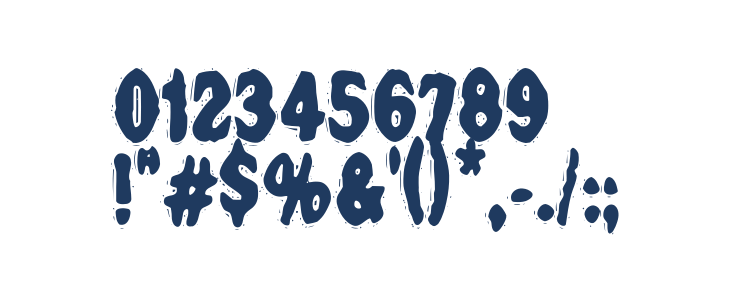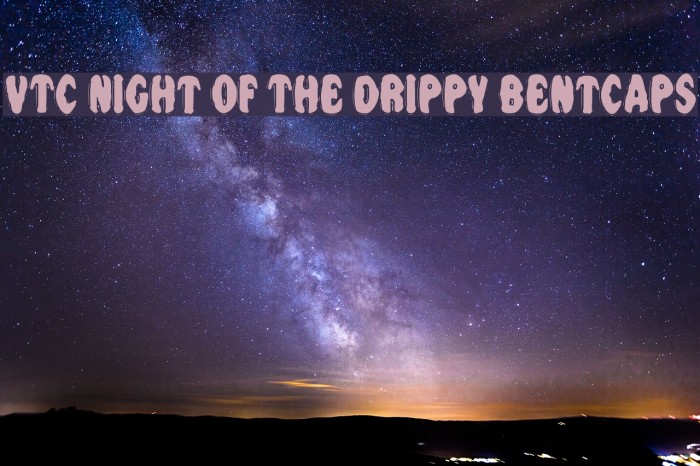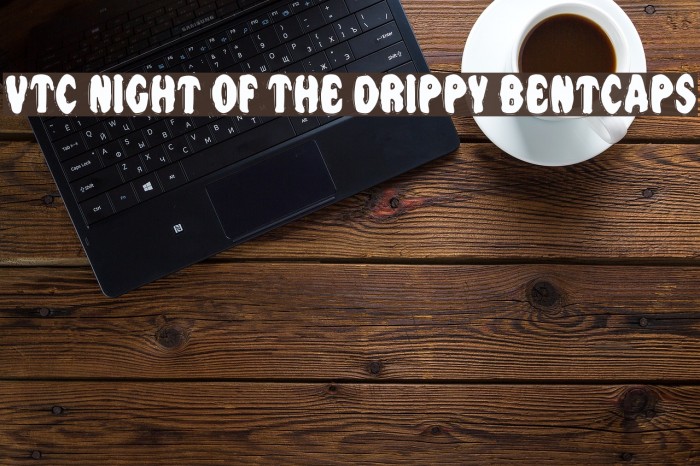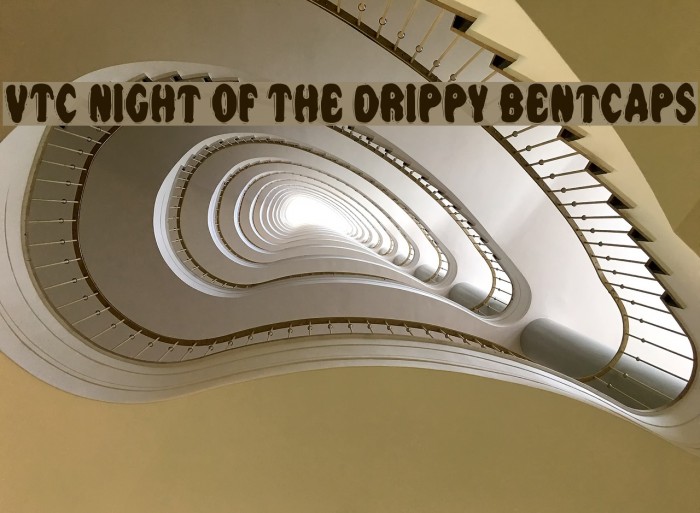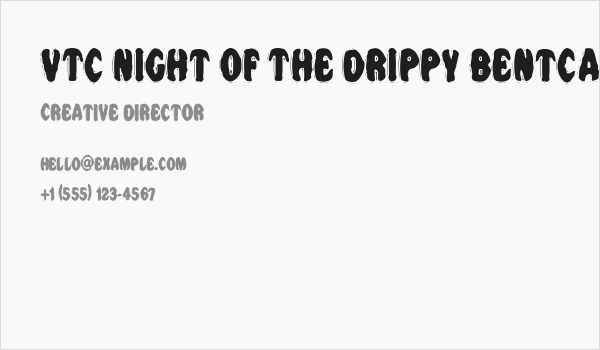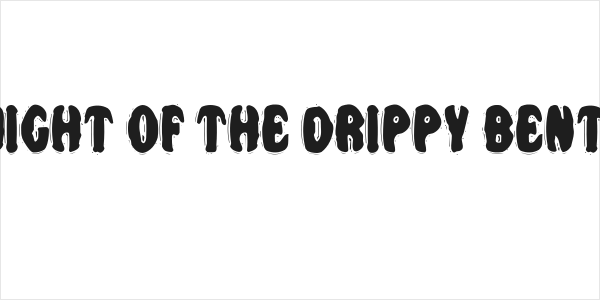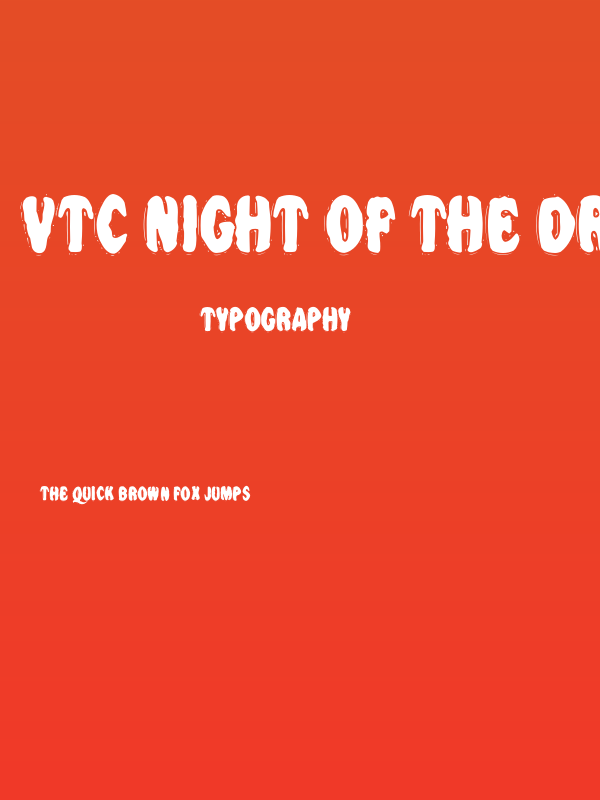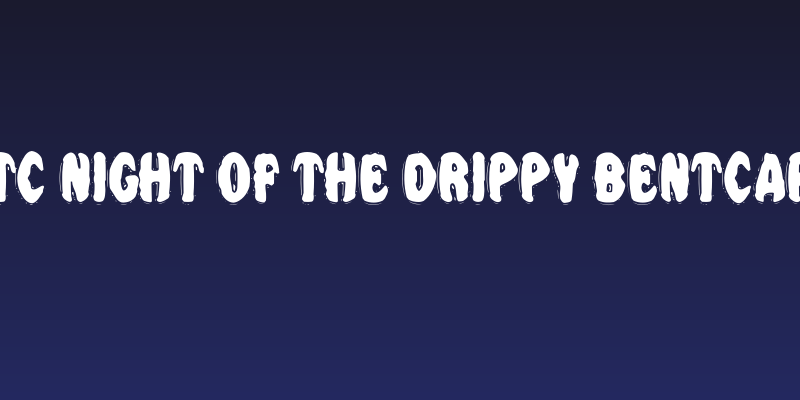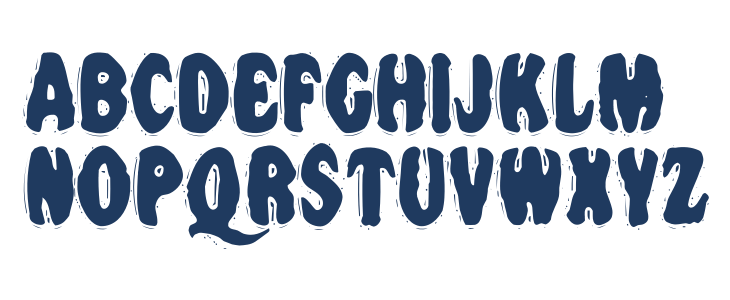
VTC Night Of The Drippy BentCaps Font
VTC Night Of The Drippy BentCaps Description
This font features a bold and playful design with a dripping effect that gives it a unique, liquid-like appearance. The characters are rounded and thick, creating a sense of movement and fluidity. This style is reminiscent of a spooky or Halloween theme, making it ideal for designs that require a touch of whimsy or eeriness. The font maintains consistent thickness throughout, with exaggerated curves and edges that enhance its decorative appeal. The numbers and special characters follow the same drippy style, ensuring a cohesive look across all elements.
| Proposed Projects | Ideal for Halloween-themed posters, party invitations, horror movie titles, and creative branding projects. |